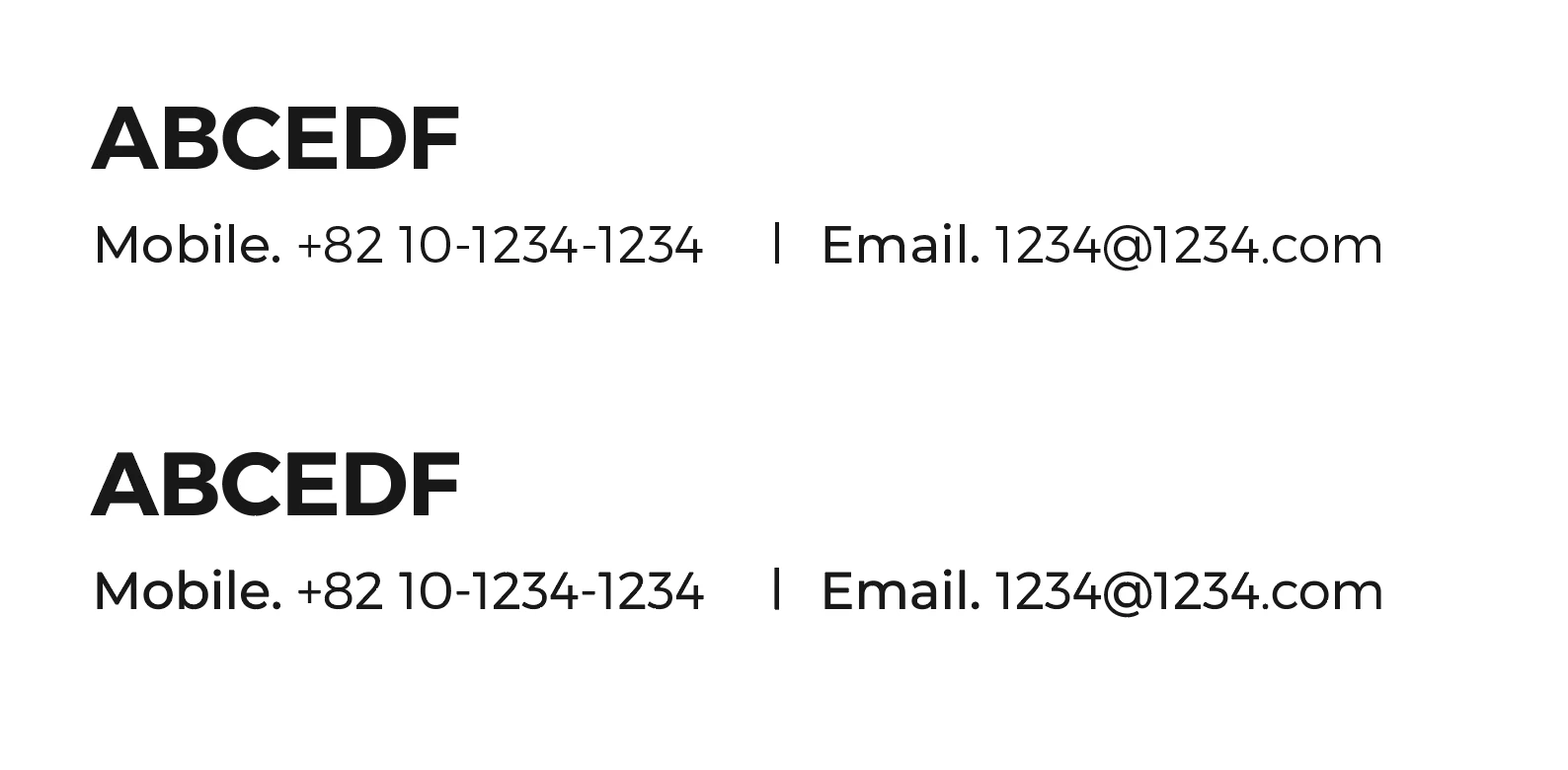
Outlining makes text fonts thicker. Please help!
Hello, when I review the printout, the outlined version of the text is thicker than the live text version. I did some research, and people were saying it's because the text loses its hinting information when its outlined.
Is there any possible way to look as the same after outlining?
Hinted text gets slightly more contrast looking thinner especially when smaller.
The difference is so small this is not be an issue but an improvement in most cases. Please provide more detail if you wish help
• What font and size are you using
• What file format is your final destination
• A screenshot
Without this detail no one can really assist you, and would be a better usage of our time if you can please provide this. Save for Web removing type or art optimization, or the effect outlineobject can help change the font hinting to what you might be looking for.
Why would anyone outline text?
I've been struggling with the same problem for years. In some cases, such as a logo, I have to add a thin stroke, outlining the stroke and subtract it from the letters, as a way to compensate. This is obviously neither practical nor ideal. Illustrator should fix this. It's ridiculous.
Yes, Outlining does this. Yes, it is because of the loss of hinting. No, you cannot escape this. But, WHY would you do this? There is almost no reason to ever outline. There is however, a lot of bad advice on the internet from people who think it's a good idea. They are wrong.
There are some cases where the person, I have to send the file to, wants the file in AI format, and he did not have the appropriate fonts that I have on his computer.
You may say, send him a fonts installer file with it, but some fonts require to purchase the lincense which it's hard for me to share it.
and I also read lots of treads to convert the file to PDF which I know will definitely work.
Ok, that is a reason to outline (if they want editable graphics, but to lose text editability forever; a strange choice). However, damage to quality is the trade-off and they need to know that. MOSTLY it is obvious on screen and low resolution printers (say 300 dpi). At higher resolutions, hinting is pretty much irrelevant.
Hinting is used to avoid the thickening of type on low resolution devices like printers and screens.
If you remove the hinting, you will get the thickening.
Is there a reason to outline the text?
If you save as PDF there is no need for outlines, the fonts will be embedded and keep their hinting information.
As you're saying, there's no reason I need to outline the text if I save as PDF.
But then the problem is it's noticeable only on my computer.
I tried to outline the text on the other computer (the same file transferred), the thickening problem won't occur.
I just wanna know what is the difference because it really hasn't happened to me so far.
Can you provide a "before & after" screen image?
Alright, so as you could see above image, the below texts are slightly thicker than the above one.
And it is more obvious on the printed paper. It really bothers me.
I tried to reboot the computer and reinstall the Illustrator but the same thing happens.
I understand it's some kind of 'hinting information' problem, but nobody actually had the answer to it.
I have the exact same issue and it affects our corporate branding. Our brand font is ‘SemiBold’  not ‘Bold’ or ‘Black’ it looks very different once outlined. And yes, I need to outline because the vendor doesn’t have licenses for our fonts!
Font name ‘Montserrat SemiBold’